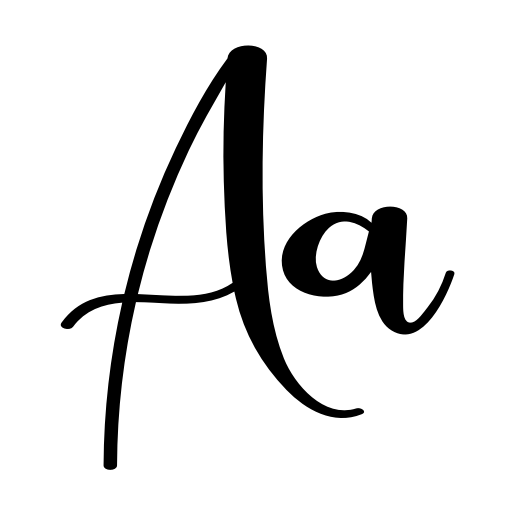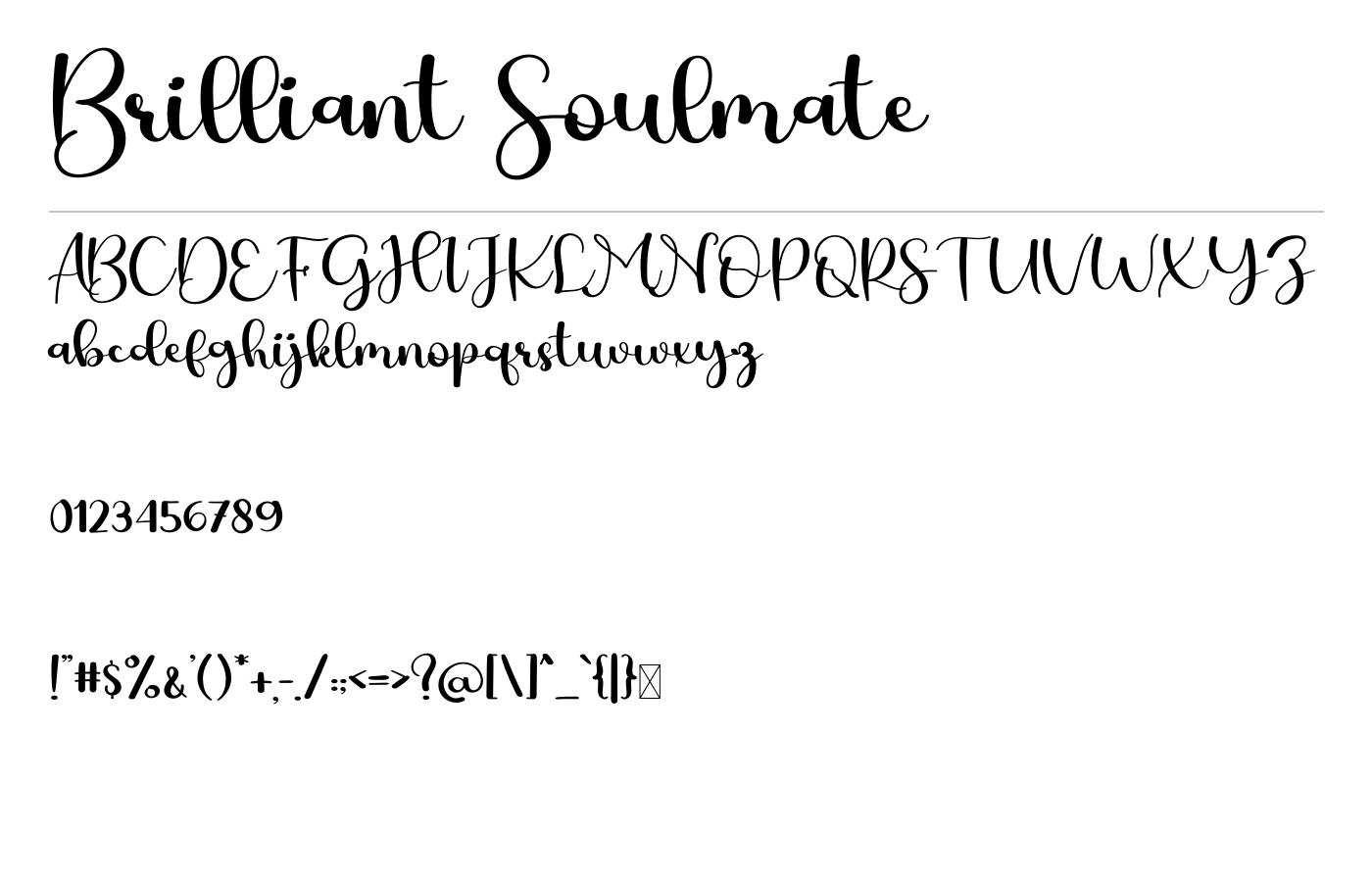
Brilliant Soulmate is a charming script font with an elegant, handwritten feel that combines playful loops and smooth curves, making it perfect for warm and inviting designs. Its balanced weight and delicate stroke variations bring a personal, artistic touch ideal for wedding invitations, branding, and feminine packaging. This font works best in headlines or decorative text where its unique style can shine and add a sophisticated yet approachable flair.
Brilliant Soulmate Font
About Brilliant Soulmate Font